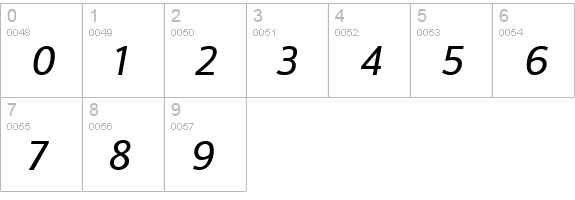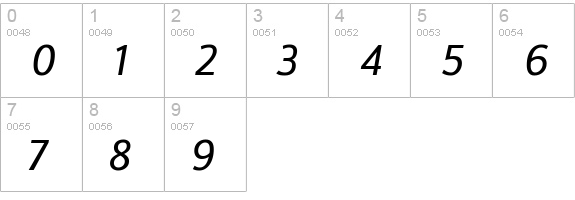
Doradani Rg Italic is a distinctive, italic variant in the Doradani typeface family \xE2\x80\x94 well suited to design and typography projects.
Doradani Rg Italic font is a stunning and elegant typeface that exudes sophistication and modernity. Its sleek and stylish design makes it perfect for a wide range of projects, from branding to editorial design. The italic style adds a touch of flair and elegance, making your text stand out with a unique and refined look. The Doradani Rg Italic font is not only visually appealing but also highly versatile, suitable for both large display text and smaller body copy. Its clean lines and distinctive curves create a harmonious and professional appearance that will elevate any design project. Best of all, Doradani Rg Italic font is free to download at FontsMarket.com. This means you can access this premium font without any cost, making it a fantastic choice for designers looking to add a touch of sophistication to their work without breaking the bank. Don't miss out on the opportunity to enhance your designs with this beautiful and free font today!